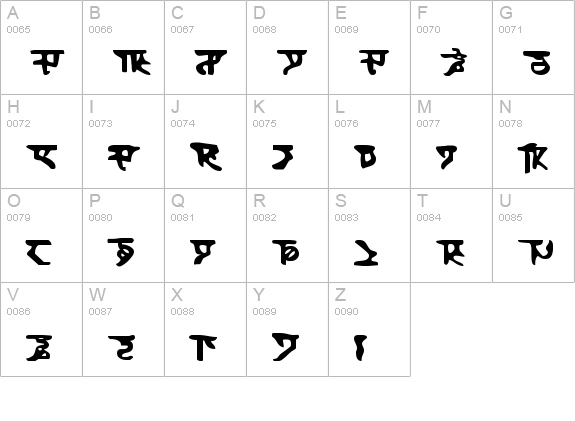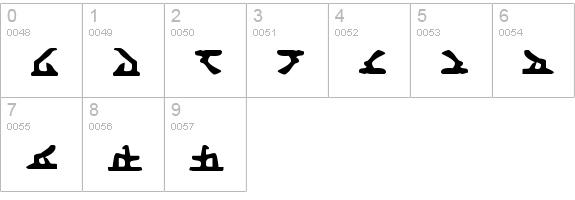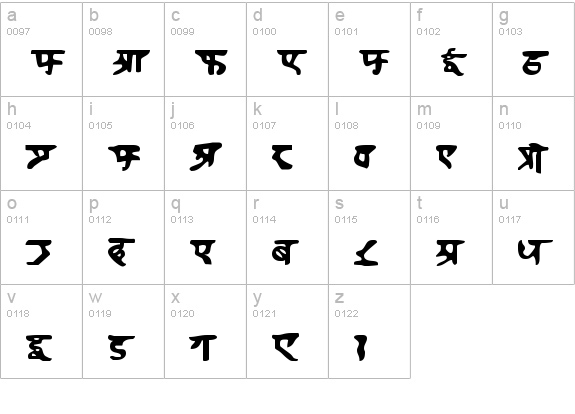
The Homeworld font is a modern and stylish typeface that exudes sophistication and elegance. With its sleek lines and contemporary design, this font is perfect for a wide range of projects, from branding to editorial design. The Homeworld font is versatile and can be used for both headers and body text, making it a valuable addition to any designer's toolkit. Best of all, this font is available for free download at FontsMarket.com, allowing you to effortlessly enhance your designs without breaking the bank. Elevate your projects with the Homeworld font and bring a touch of class to your work.